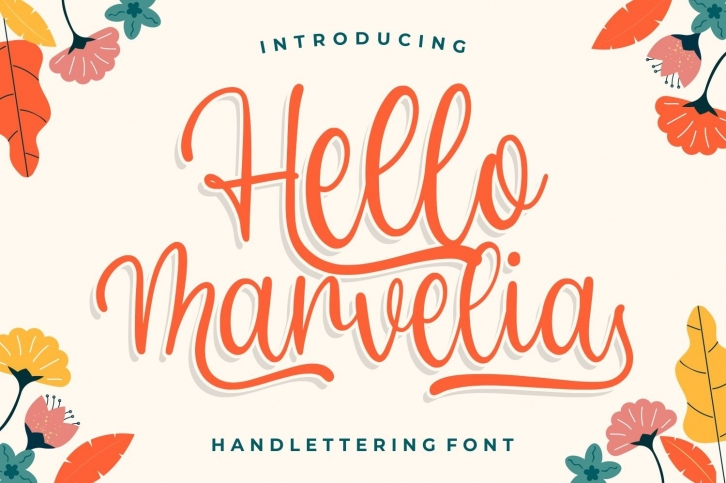
Hello Marvelia is a gorgeous font that was realeased on July 14, 2020. The font can be used in many style contexts and design environments. Perfect for invitations, magazines, websites, logos, and more! It was designed by Good Java Studio and the file size is 17.21 MB. Thanks for checking out this font!